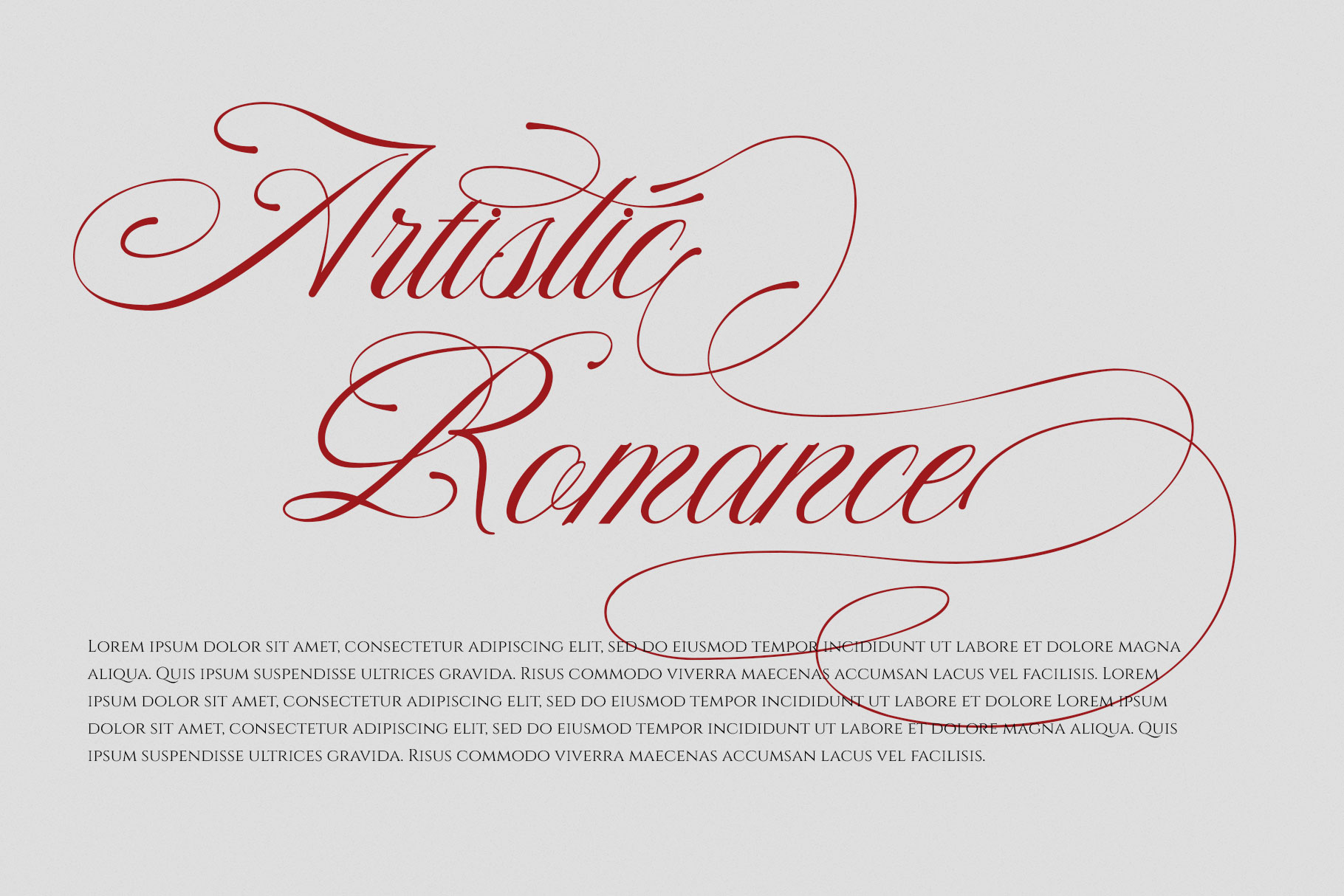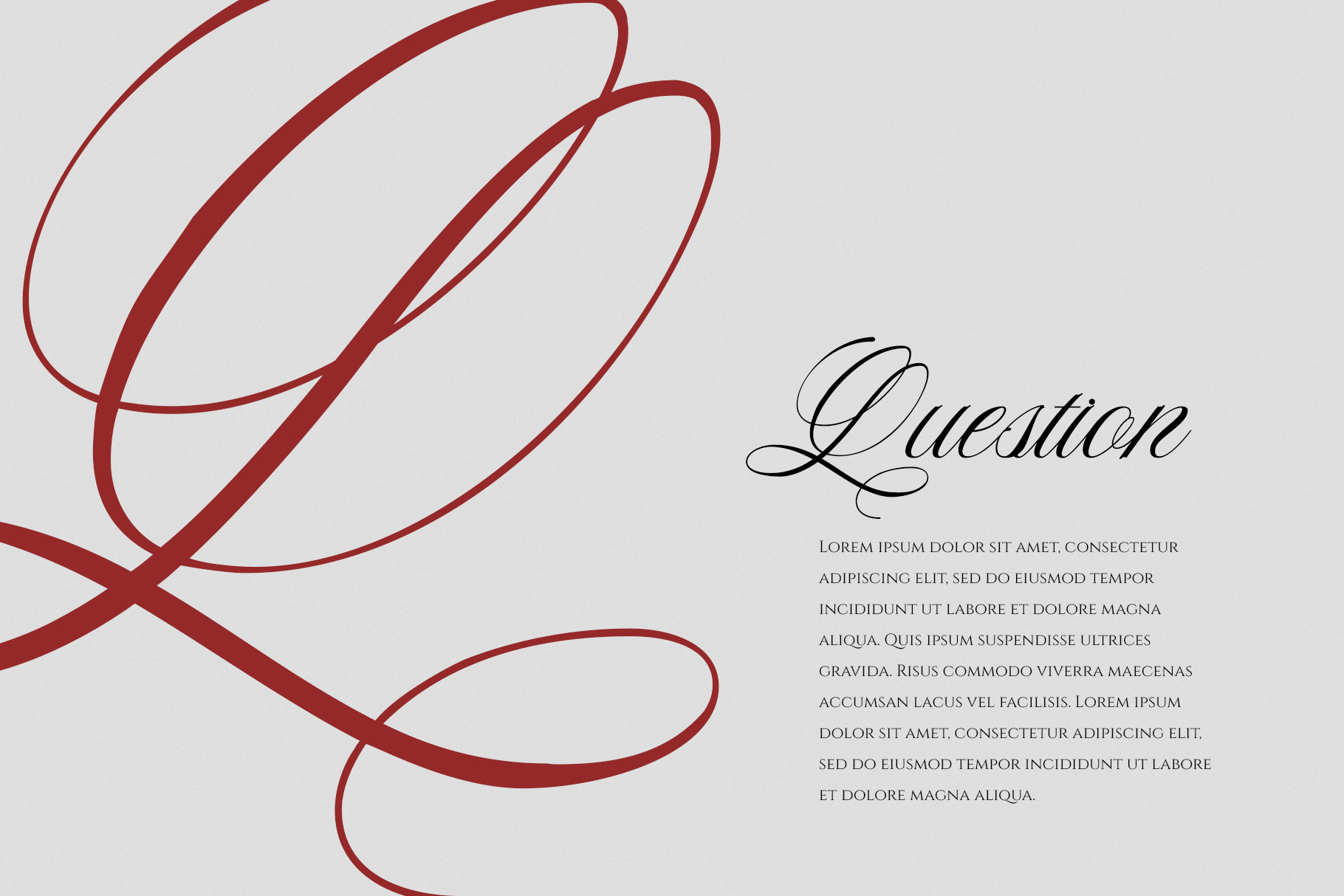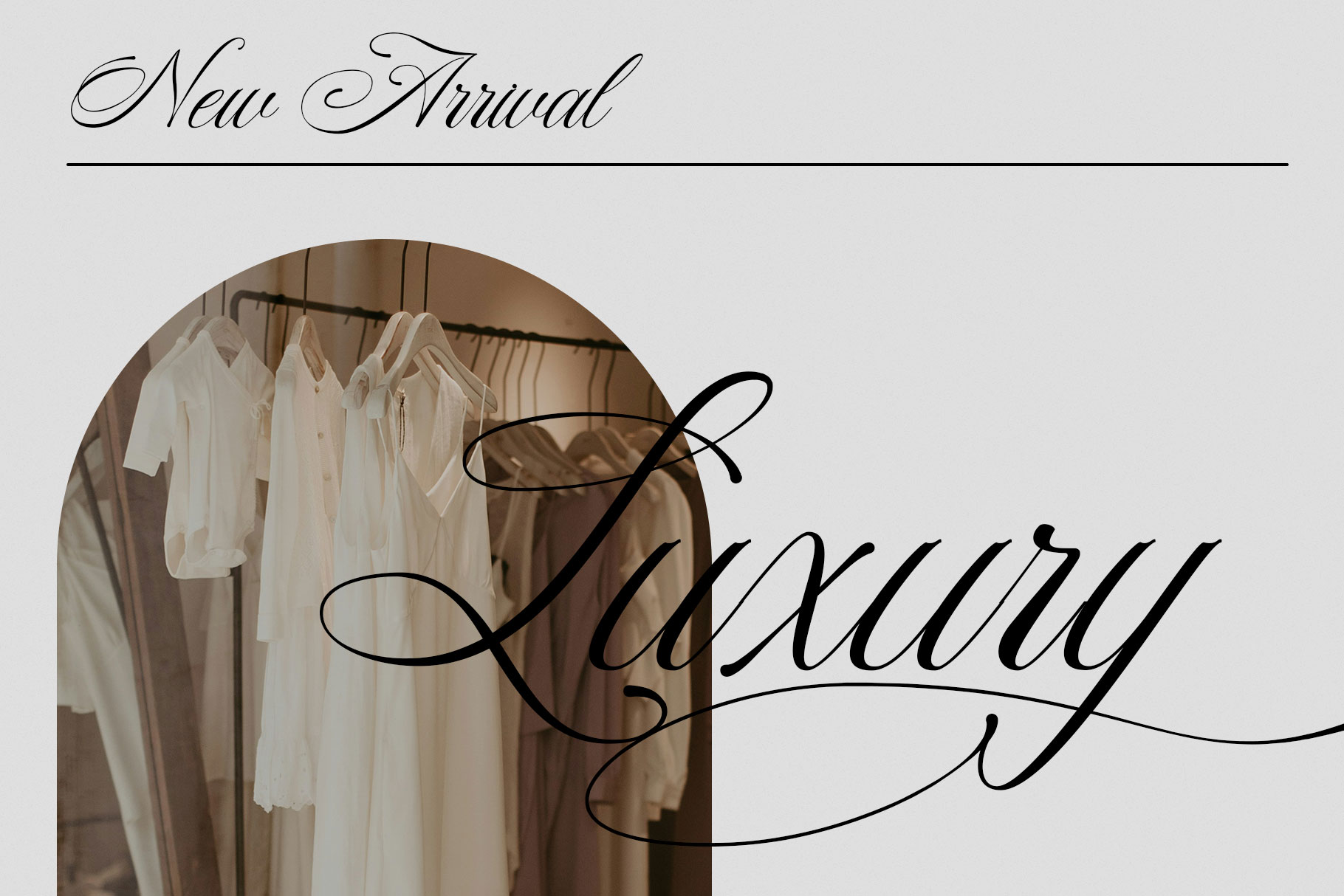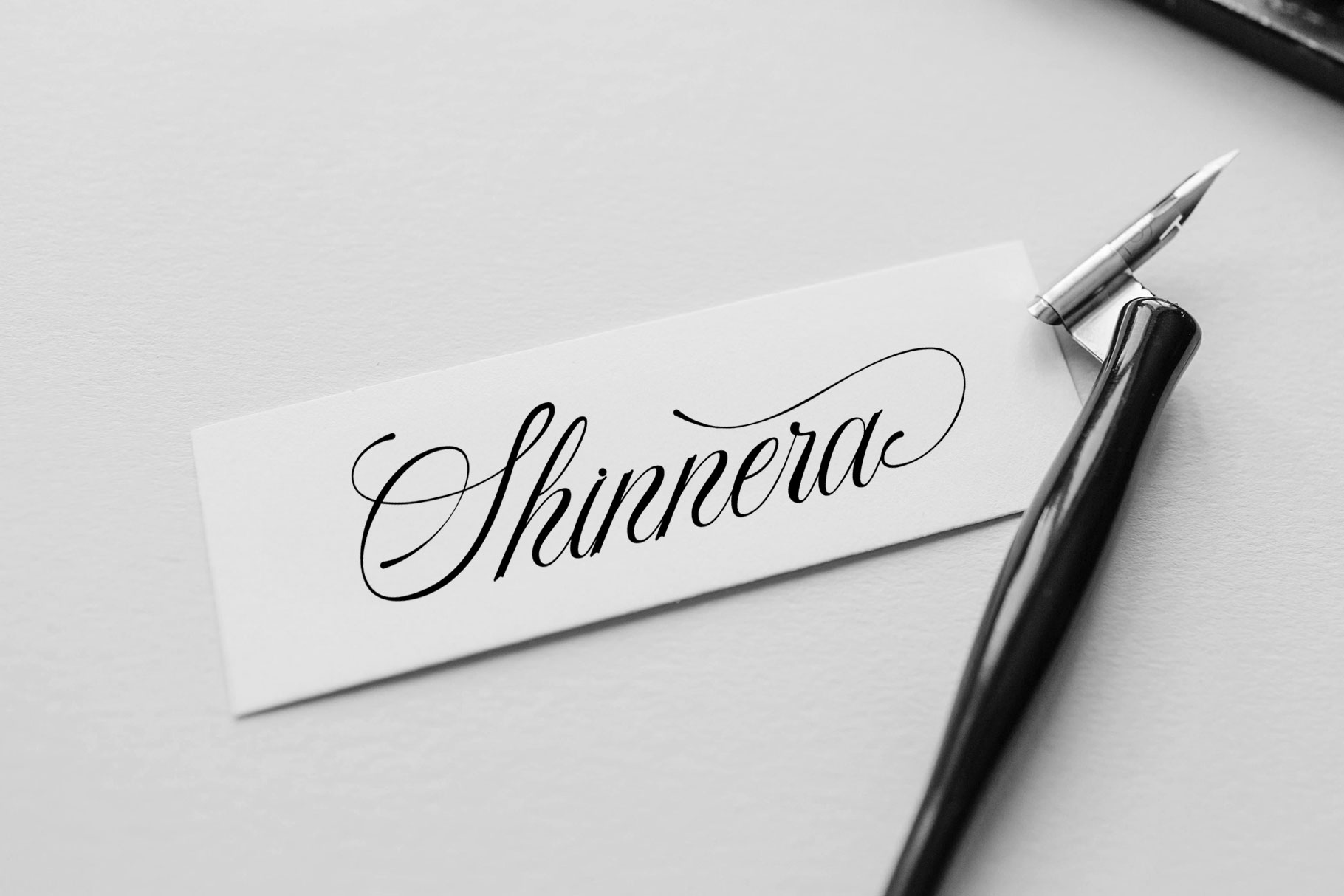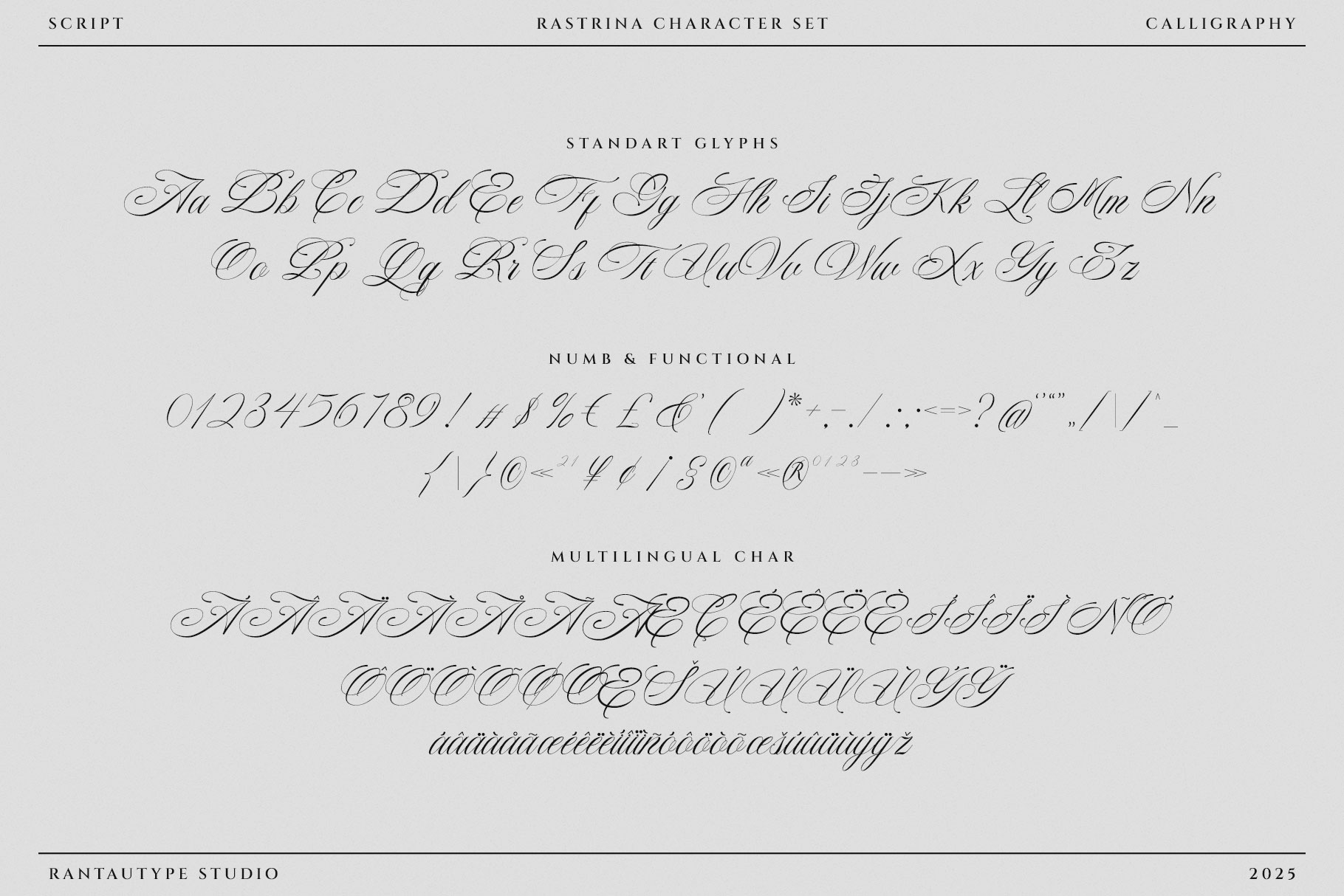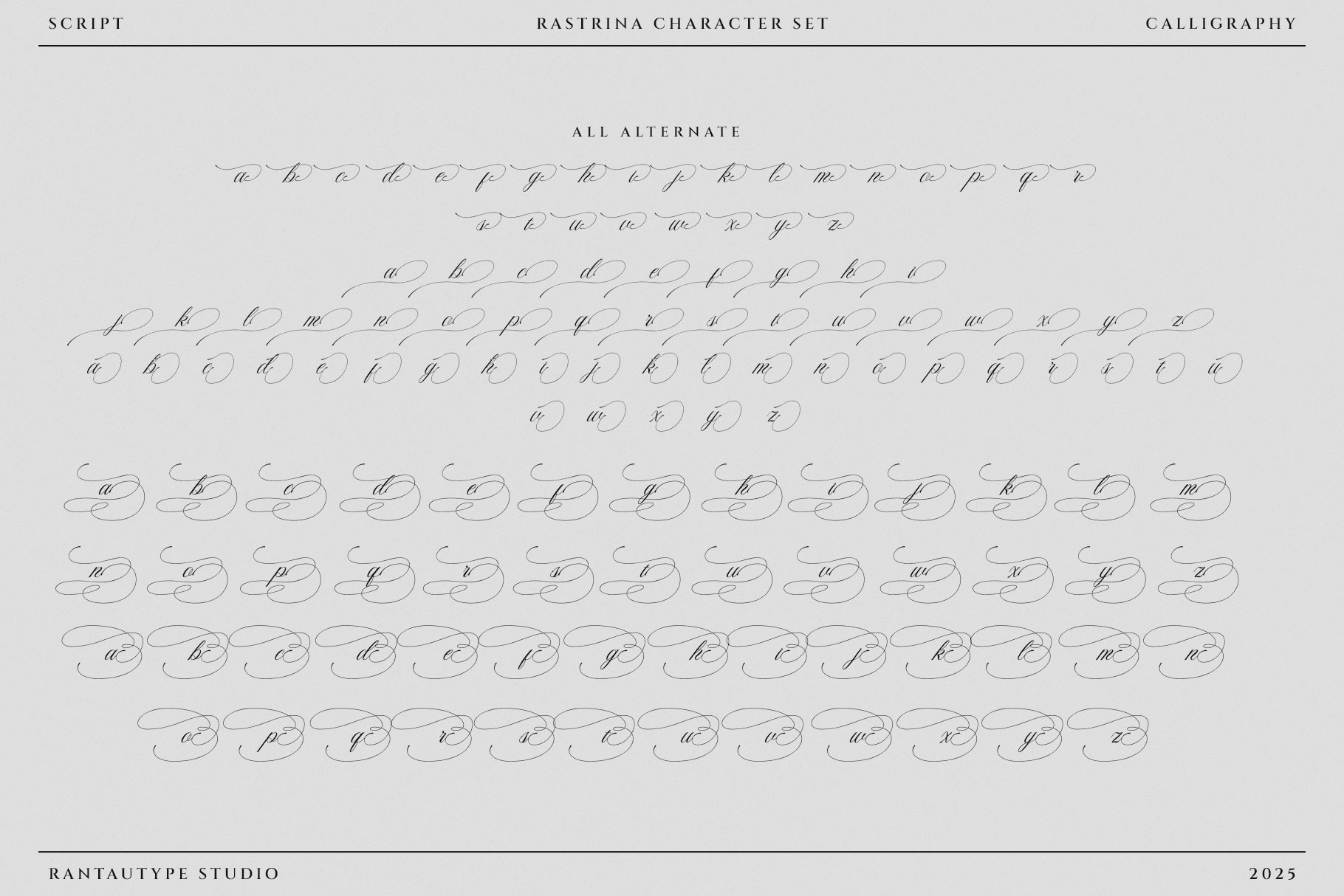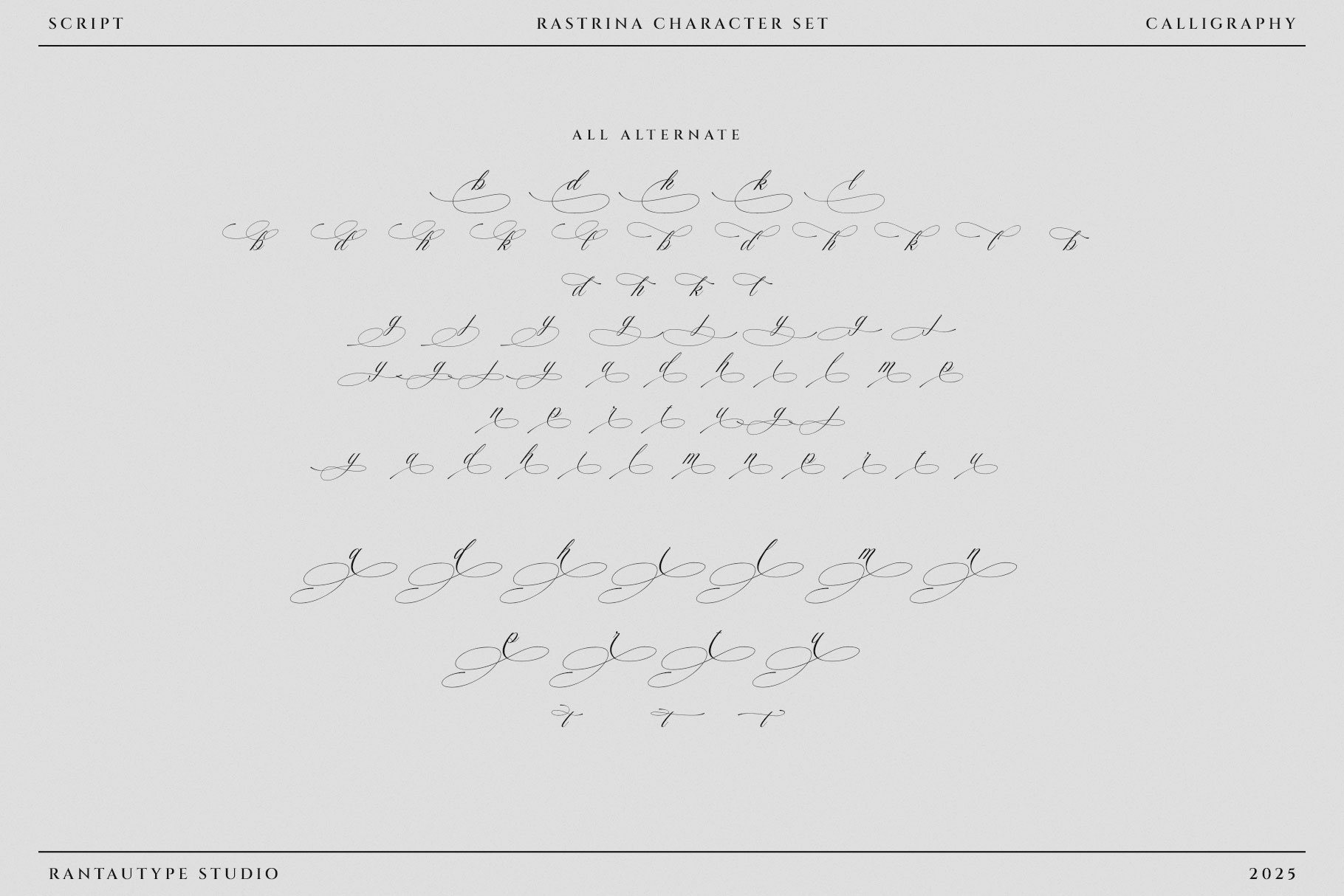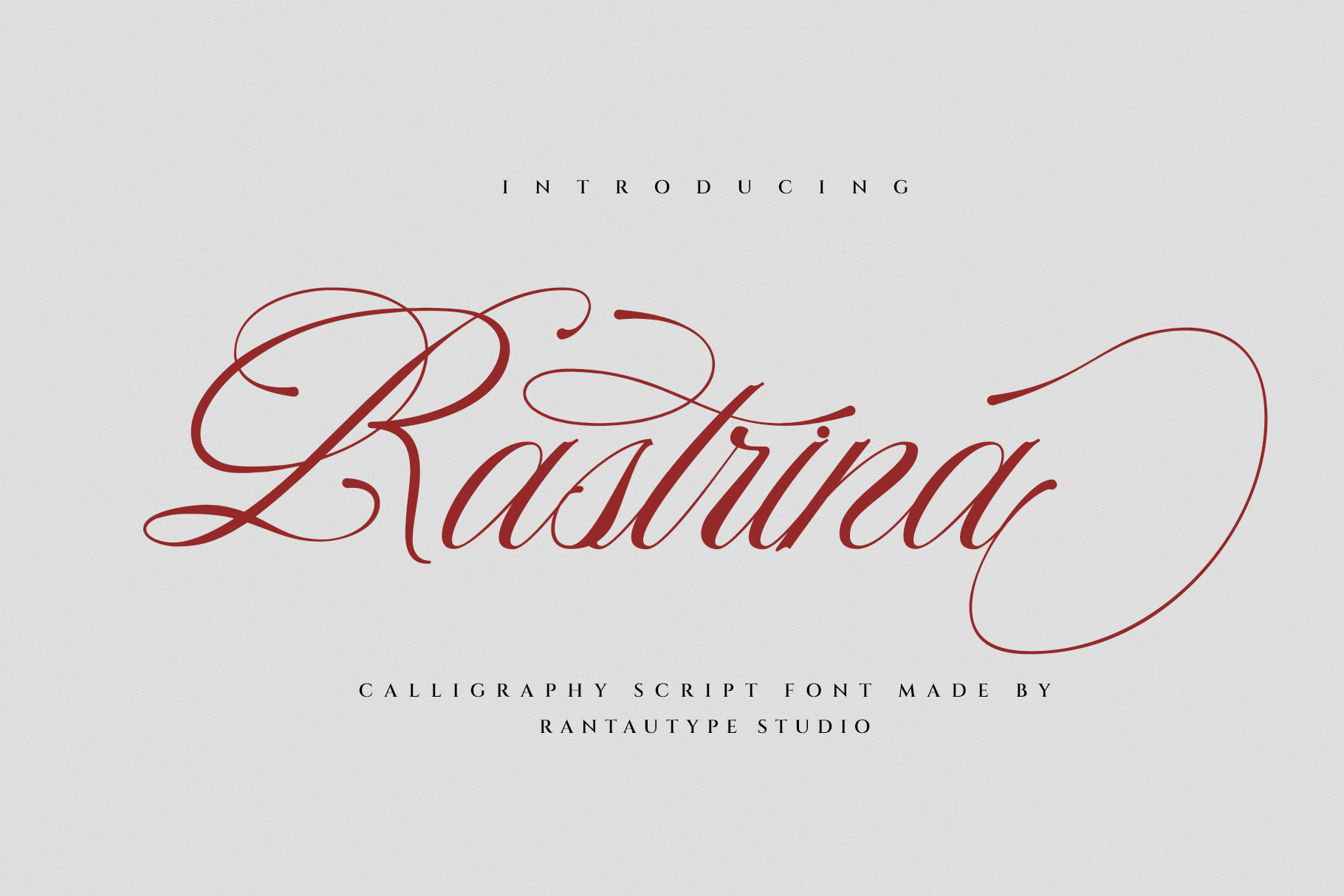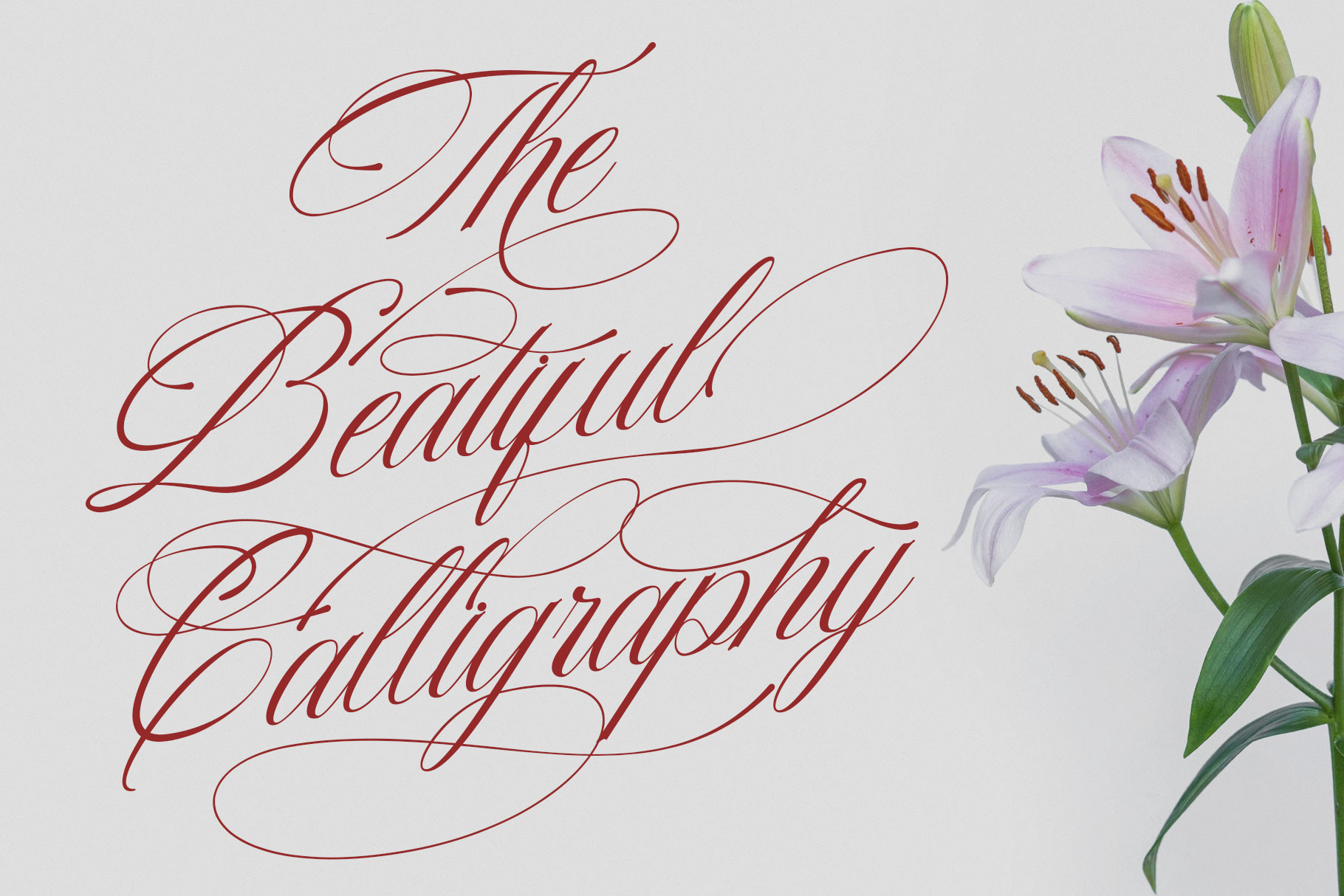
Rastrina Calligraphy Script Font
Rastrina is calligraphy script font embrace grace and feminity. Rastrina is a perfectly choice for any creative endeavor, creating, modern, lifestyle design such as logotype, title, cover, branding, invitations, wedding designs, display and magazine, social media posts, advertisements, printed quotes, product packaging, corporate brand, product designs, labels, photography, watermarks, special events and any other project with modern touch.